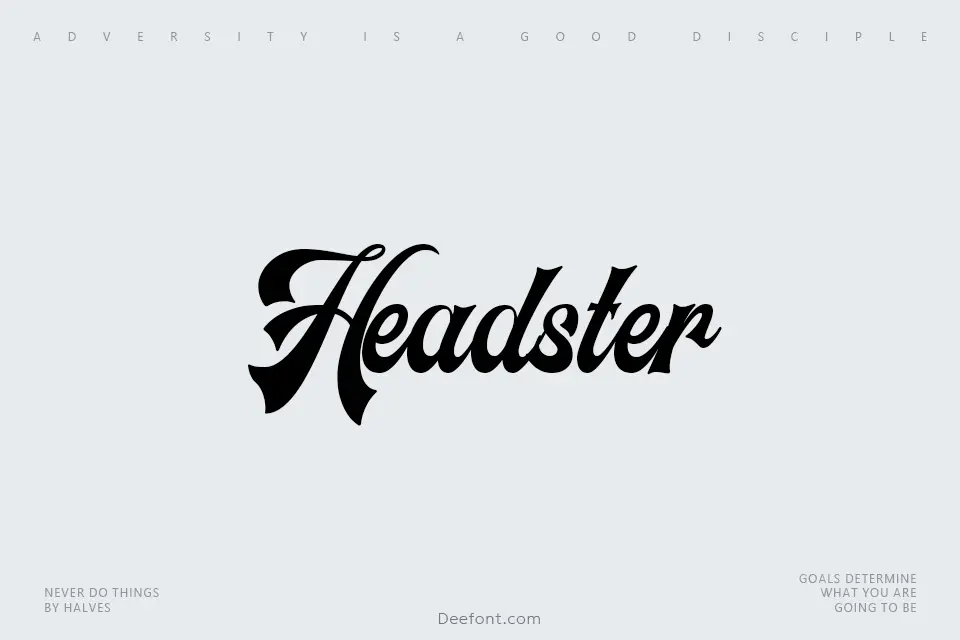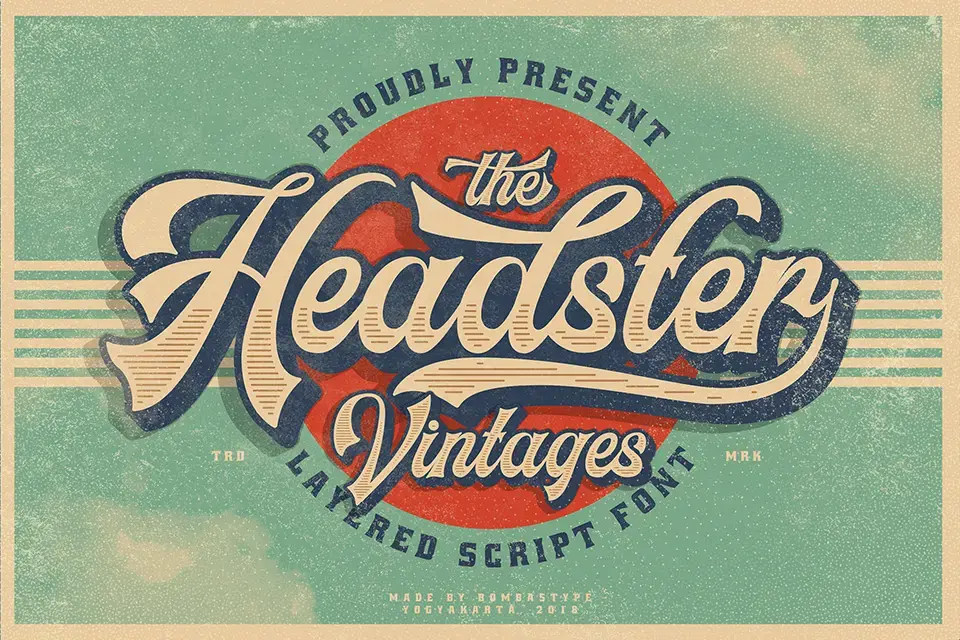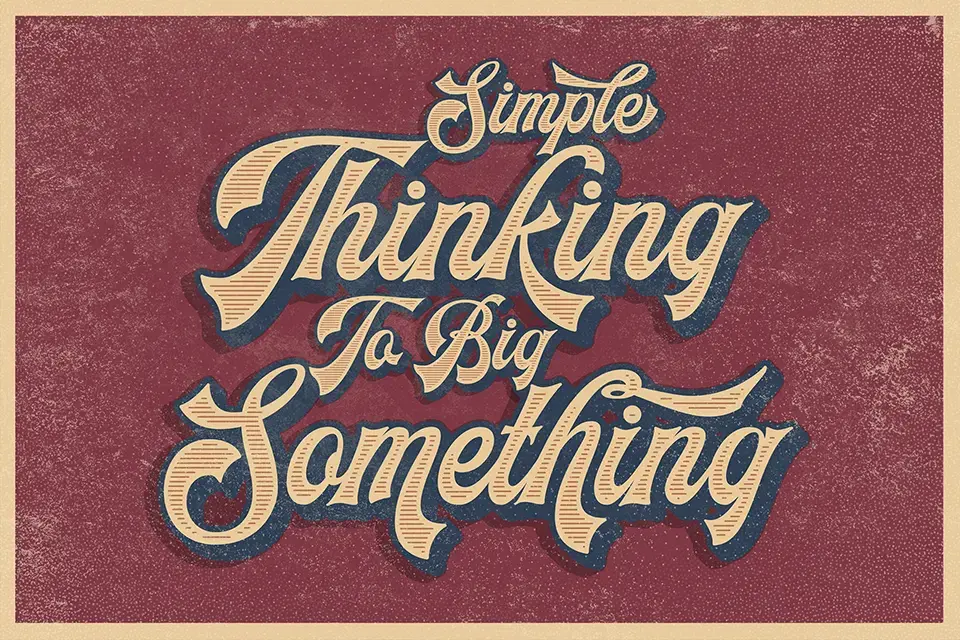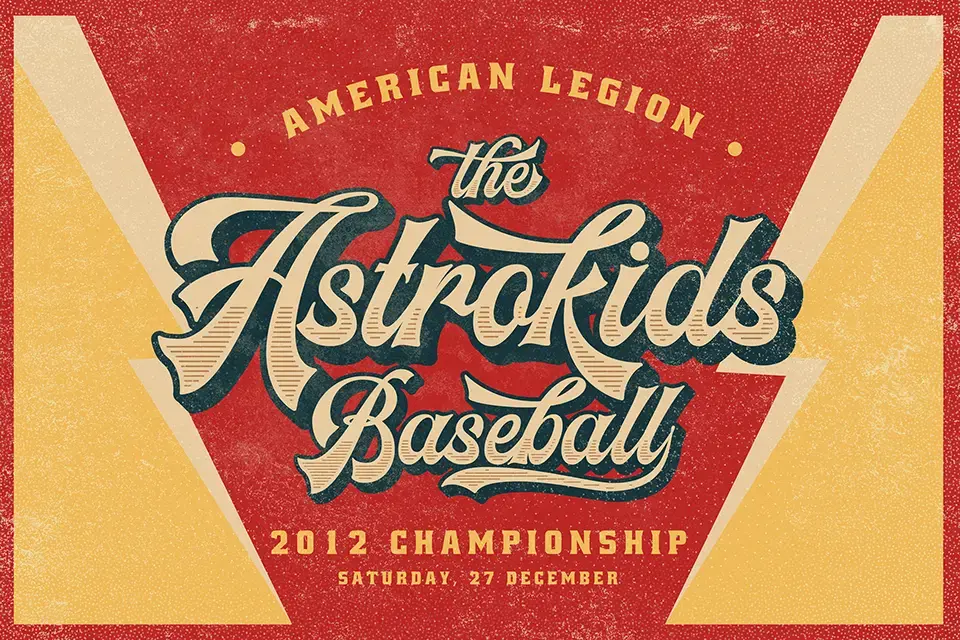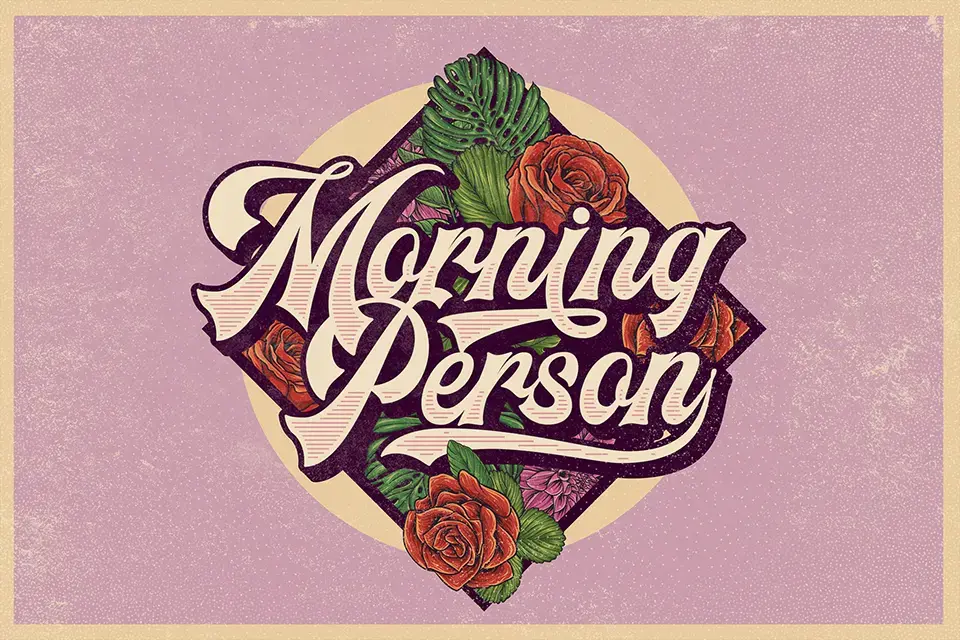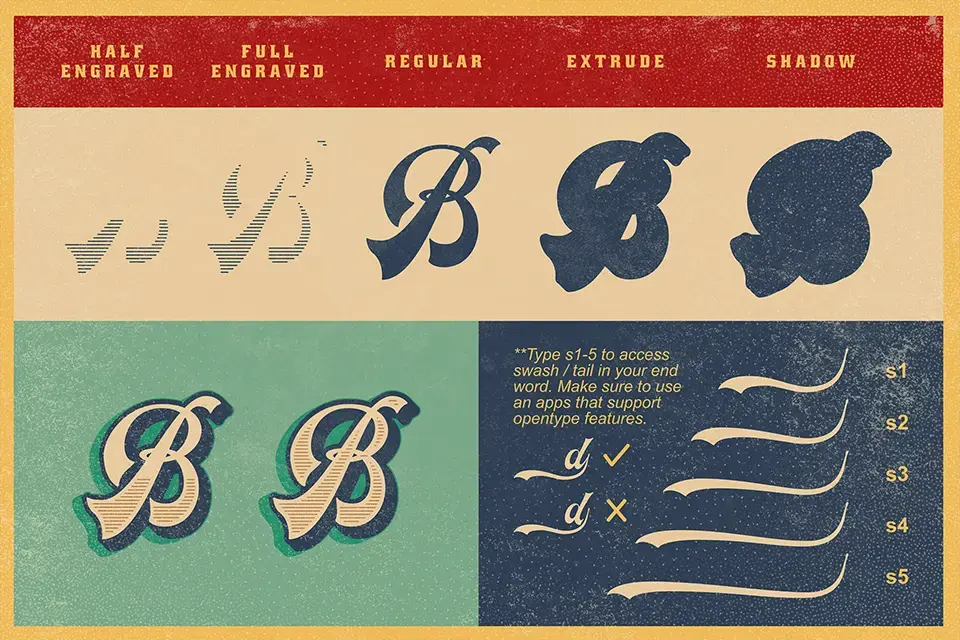
Headster Font
Headster is a bold, vintage-inspired script font designed by Bombastype. Featuring a versatile layered system with extrude and engraved styles, it captures the nostalgic charm of old-school signage. This dynamic typeface is perfect for creating impactful logos, retro badges, packaging designs, and poster headlines that demand a strong, classic personality.